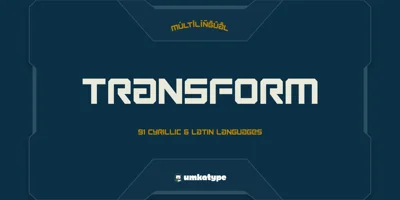
Transform Font
Transform Font – Futuristic Variable Type with Morphing Superpowers
Revolutionize your designs with Transform Font, the ultimate variable font that dynamically morphs between multiple styles. Perfect for cutting-edge branding, digital experiences, and projects demanding next-level typographic flexibility.
Why Transform Font Redefines Typography
5 Design Axes – Seamlessly shift between:
Weight (Thin to Black)
Width (Condensed to Extended)
Style (Linear to Curved)
Contrast (Low to High)
Tech (Humanist to Robotic)
Infinite Variations – Create custom intermediate styles
Perfect for Motion Design – Animate between states
1,800+ Glyphs – Full Latin, Greek, Cyrillic support
OpenType Features – 15+ stylistic sets
Micro-Adjusted Metrics – 2,500+ kerning pairs
Transform Font
Where Transform Excels
1. Digital Branding
Adaptive logo systems
Responsive web typography
App interface dynamics
2. Motion Graphics
Animated type sequences
Title design for video
AR/VR typography
3. Data Visualization
Morphing infographics
Interactive charts
Real-time data displays
4. Experimental Design
Generative art projects
Parametric typography
AI-assisted creations
Design Tip: Use axis controls to create custom styles unavailable in static fonts!